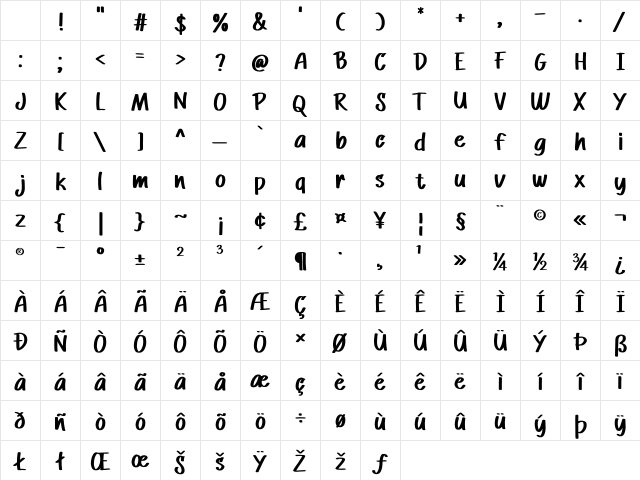
Complete ANIMAXI Regular glyph index. Displaying only characters natively supported by ANIMAXI Regular font.
ANIMAXI is a composed and adaptable typeface that performs quietly and consistently across a wide range of design contexts.